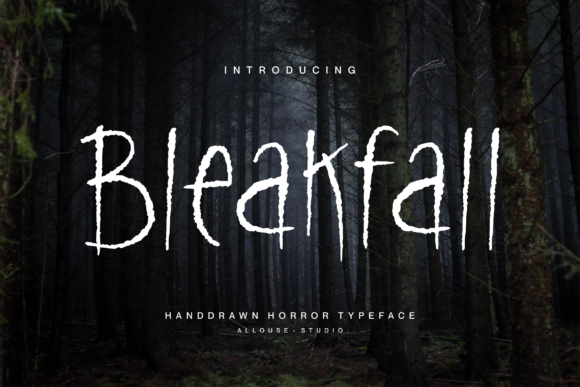
The Creepy Charm of Bleakfall Font: A Designer’s Delight for Halloween and Beyond
I still remember the year I was tasked with designing a Halloween-themed poster for a client’s haunted house attraction. I had a vision of creepy trees, glowing eyes, and a spine-tingling font to tie it all together. But, as I scrolled through my font library, nothing seemed quite right. That was when I stumbled upon Bleakfall Font – a creepy, display font that instantly elevated my design from meh to mesmerizing. In this article, I’ll share my experience with Bleakfall Font, its features, and how to make the most of it in your designs.
An Honest Review of Bleakfall Font
• ✨ Creepy and Unique: Bleakfall Font has a distinct, eerie feel that’s perfect for Halloween designs, horror-themed projects, or any creative endeavor that requires a touch of the macabre.
• ✅ High-Quality Rendering: The font looks great in various sizes and resolutions, making it versatile for different design applications.
• 💡 Instant Impact: Adding Bleakfall Font to your design instantly grabs attention and sets the tone for a thrilling experience.
While Bleakfall Font is an excellent choice for display purposes, it may not be the best fit for body text or readability. ⚠️ Its unique design and lettering style can make it challenging to read in smaller sizes or longer paragraphs.
Another thing to consider is that Bleakfall Font might not be suitable for formal or professional designs, as its creepy charm might not align with the tone you’re aiming for. 🤔
The Backstory of Bleakfall Font
Bleakfall Font was inspired by the haunting landscapes of abandoned asylums and the mysterious allure of the supernatural. Its creator aimed to craft a font that would evoke a sense of unease and intrigue, perfect for designers looking to add a touch of the macabre to their work.
Font Name Bleakfall Font
Author allouse.studio
Q: What type of designs is Bleakfall Font best suited for?
A: Bleakfall Font excels in display purposes, such as titles, headings, and short text elements, particularly in Halloween-themed designs, horror-themed projects, or any creative endeavor that requires a touch of the macabre.